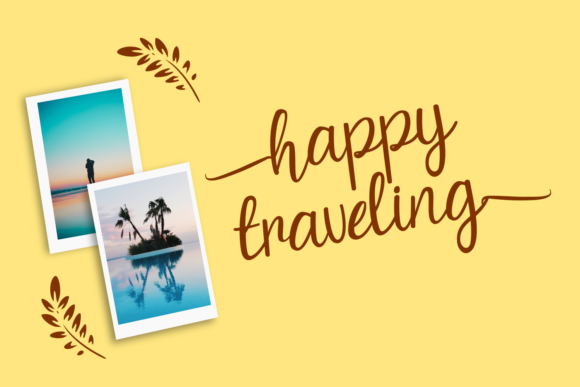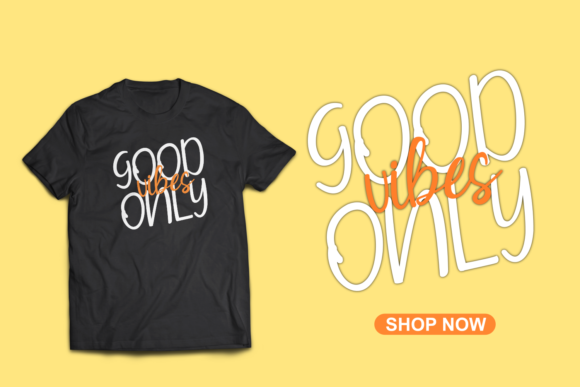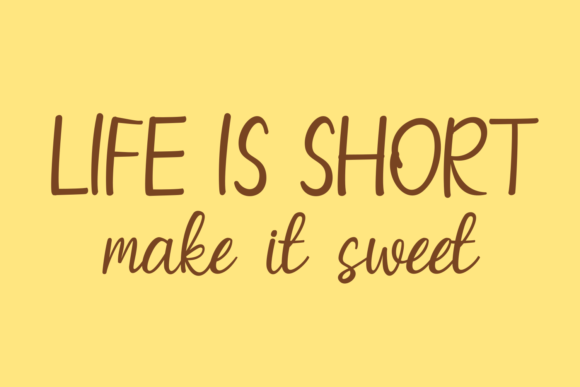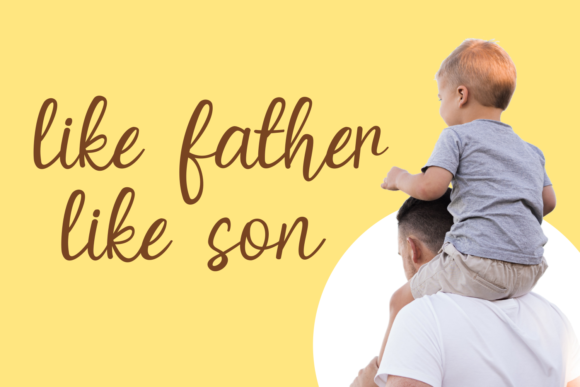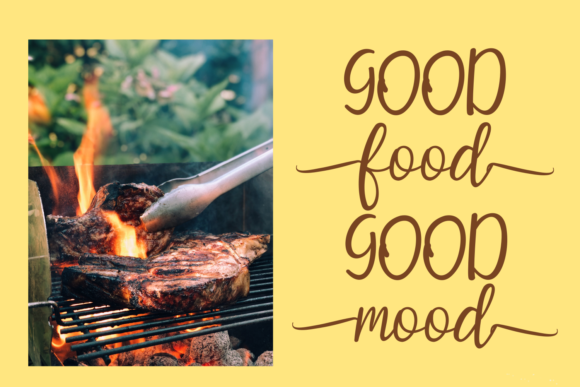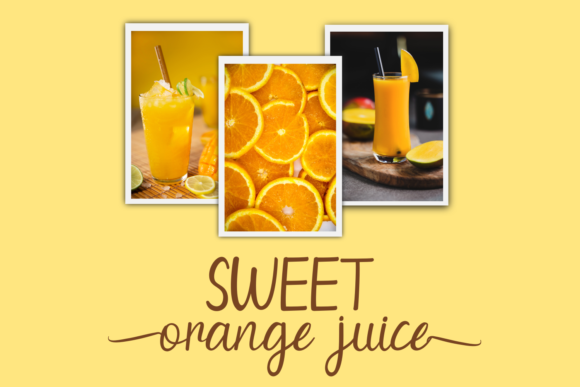
Introduction to Salthing Font Font
Fonts play a crucial role in design, and the Salthing Font font is a typeface that brings both character and versatility to any project. Whether you’re working on a branding project, a website, or a print design, the Salthing Font font offers a unique style that can elevate your work.
Salthing feels equally charming and elegant.
This stunning script font is a stylish homage to classic calligraphy It features a varying baseline, smooth lines, gorgeous glyphs and stunning alternates.
Key Features of Salthing Font Font
Why Choose Salthing Font Font?
The Salthing Font font is more than just a typeface – it’s a design tool that helps you communicate your message with style and clarity. Its unique character set and versatile design make it suitable for a wide range of applications, from elegant invitations to bold headlines.
With its carefully crafted letterforms and balanced proportions, the Salthing Font font ensures readability and visual appeal across all mediums.
What makes Salthing Font font special?
The Salthing Font font stands out with its unique design, exceptional readability, and versatility across various design applications.